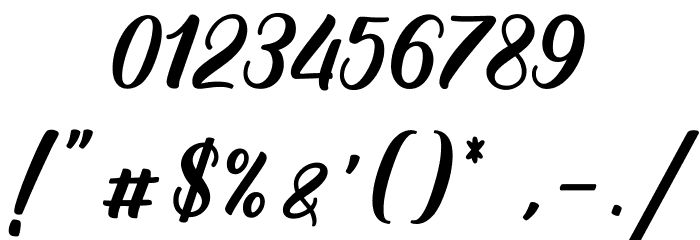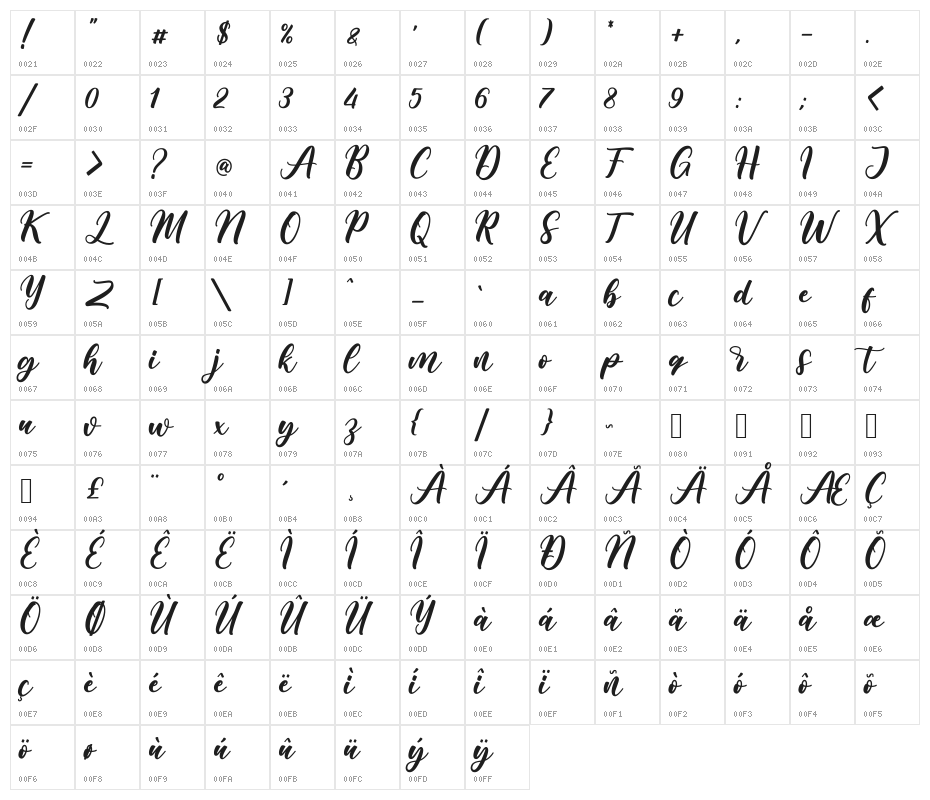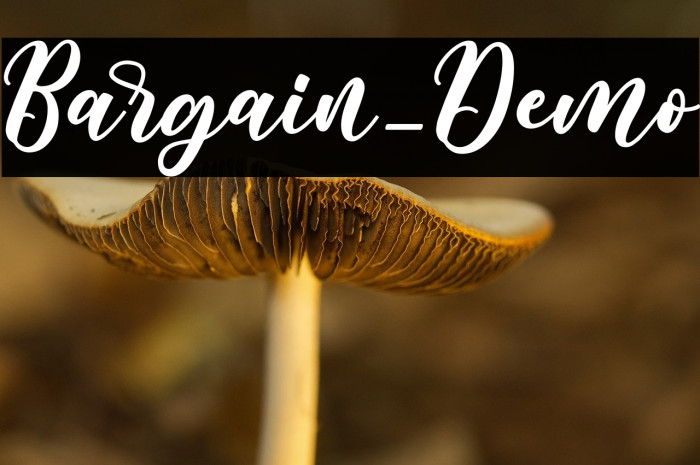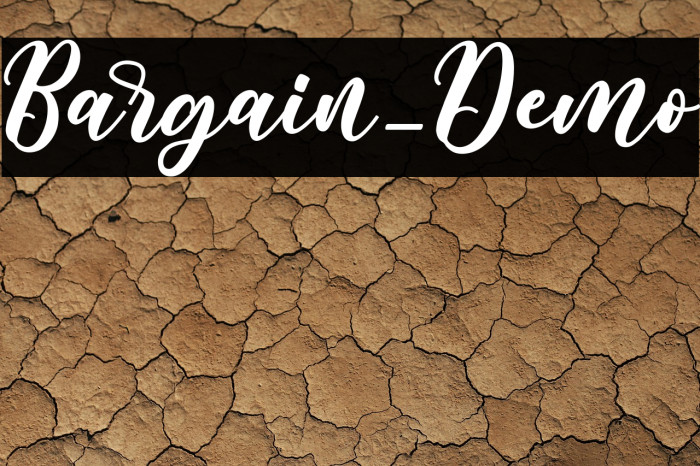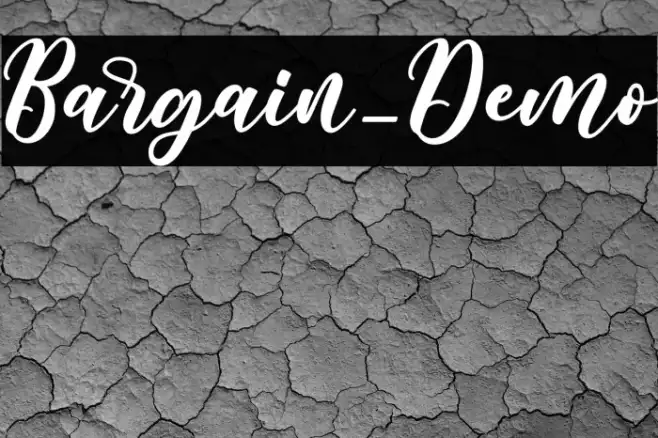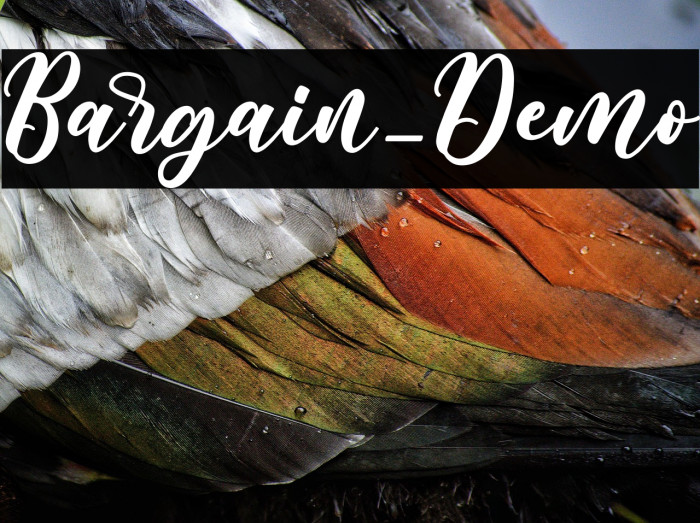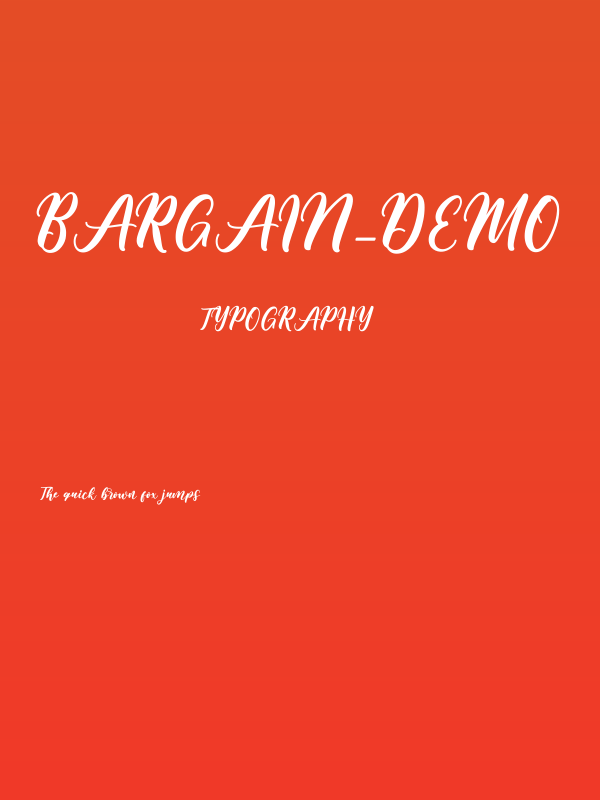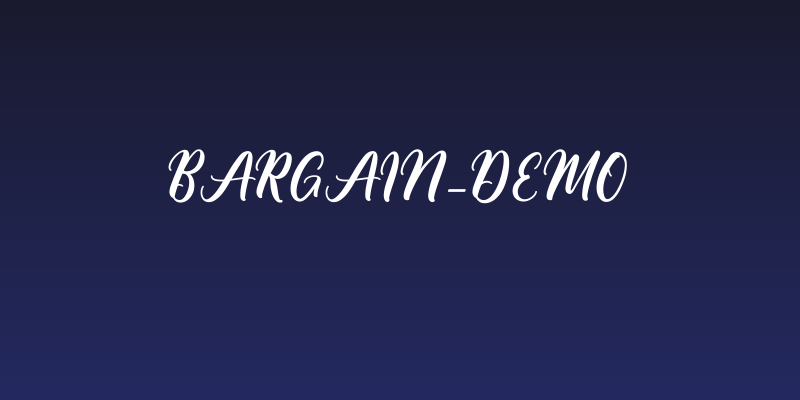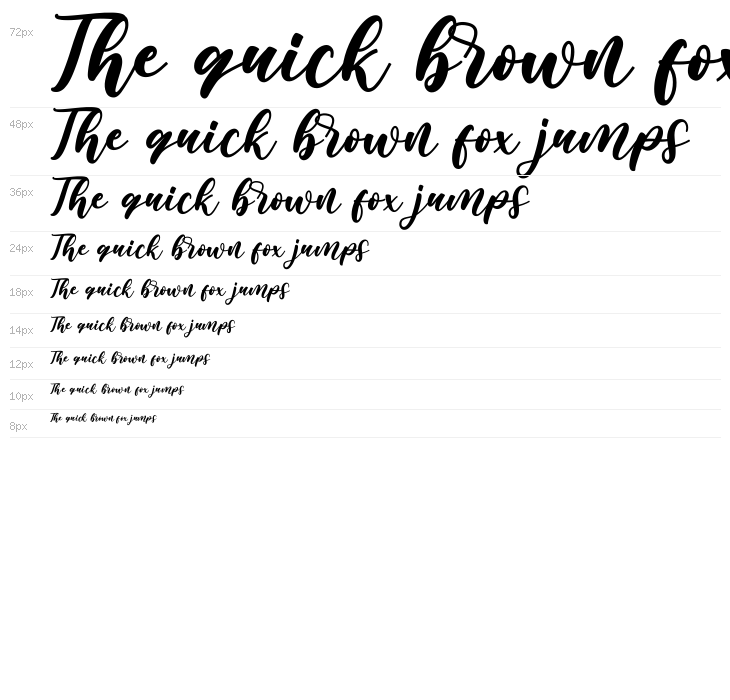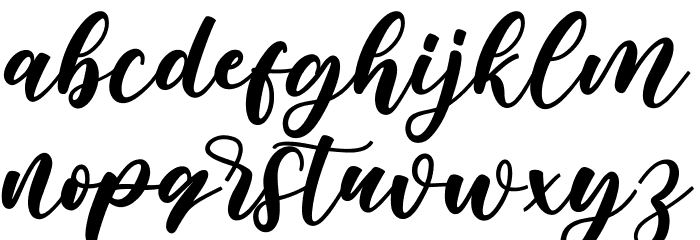
Bargain_Demo Font
Bargain_Demo Description
This font features a flowing, cursive style that exudes elegance and sophistication. The letters are connected in a smooth, continuous manner, giving it a handwritten appearance. The uppercase letters are slightly more ornate, with flourishes that add a touch of flair. The lowercase letters maintain a consistent style, with rounded edges and a slight slant that enhances readability. Numbers and special characters are designed to match the overall aesthetic, ensuring a cohesive look across all text. The font's bold strokes and high contrast between thick and thin lines make it stand out, while the moderate character spacing ensures clarity and legibility.